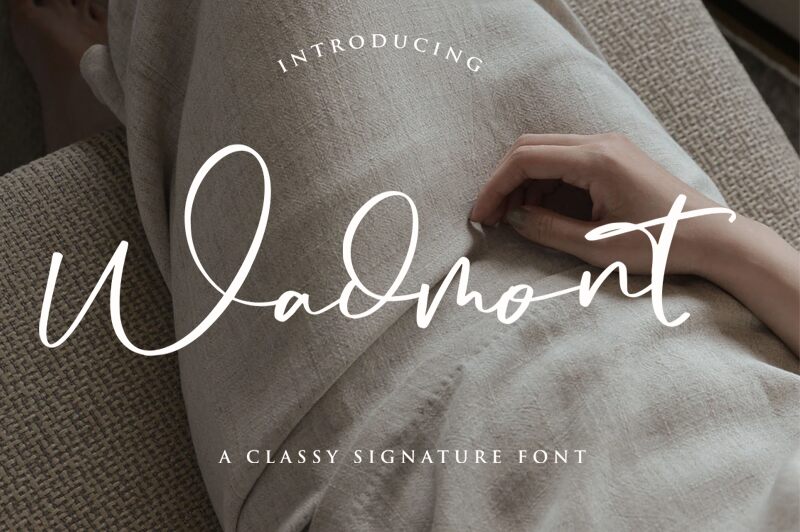
Wadmont
Wadmont, a creation by Vultype, is a sophisticated and elegant font that exudes the essence of a classy signature. Its semi-light weight adds a touch of delicacy and refinement to any project it graces.
Perfect for luxury branding, high-end fashion magazines, or exquisite wedding invitations, Wadmont effortlessly conveys an air of exclusivity and sophistication. With its graceful curves and stylish demeanor, this font will elevate your designs to new heights, leaving a lasting impression on your audience.
Let Wadmont weave its magic into your next project and watch as it transforms ordinary into extraordinary.